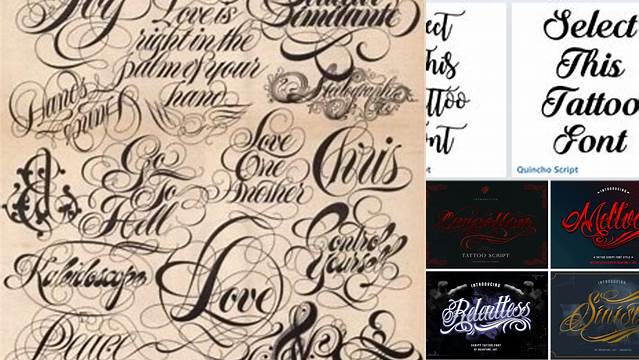
Tattoo Fonts: Styles & Cursive Font Guide
Choosing the right tattoo fonts is a big deal, right? It's like picking the perfect outfit – you want it to reflect your personality, tell your story, and look killer for years to come. Whether you're dreaming of a delicate cursive script or a bold, attention-grabbing block letter, the font you choose is as crucial as the design itself. So, let's dive into the world of tattoo lettering styles, exploring cursive fonts, and helping you pick the perfect ink!
Decoding Tattoo Font Styles: A World of Options
Alright, guys, let's get down to brass tacks. The first thing you'll notice is the sheer variety of tattoo font styles out there. It's a bit overwhelming, but don't sweat it! We'll break it down. You've got your classic categories, and then there are tons of variations within each one. Understanding these styles will help you narrow down your choices and find something that really clicks. Let's take a look at some of the main categories:
- Cursive Fonts: These are the elegant, flowing scripts that mimic handwriting. They're super popular for names, quotes, and anything that you want to have a personal touch. Think of them as the calligraphy of the tattoo world. There are tons of different cursive fonts – some are super fancy with lots of swirls, while others are simpler and more straightforward.
- Block Letter Fonts: Strong, bold, and easy to read from a mile away. Block letters are perfect for making a statement. They're great for dates, initials, or words that you want to be the focal point of your tattoo. You'll find block fonts in all sorts of variations, from clean and modern to old-school and vintage.
- Script Fonts: Script fonts are like a cousin to cursive but can include various styles that imitate handwriting. Script fonts often have a more casual and less formal feel compared to the traditional cursive. You can find them in different forms, from elegant and refined to more relaxed and playful.
- Serif Fonts: These fonts have small decorative strokes (called serifs) at the end of the letters. They can look classic, elegant, and sophisticated. Serif fonts are often used in traditional tattoo designs.
- Sans-Serif Fonts: The opposite of serif fonts, sans-serif fonts don't have those little decorative strokes. They tend to look cleaner, more modern, and are generally easier to read at a distance. You often see these fonts used in minimalist tattoo designs.
- Gothic/Blackletter Fonts: This style is all about those dramatic, old-school vibes. Gothic fonts are often used for anything related to the past. These are great if you want a tattoo with a medieval or vintage feel. They have intricate details and thick, bold strokes.
And that's just the tip of the iceberg, folks! Within each of these categories, there are countless sub-styles and variations. The cool thing is, you can often mix and match different fonts and styles to create something truly unique. So, the exploration has just begun!
Cursive Tattoo Fonts: Elegance and Personal Touch
Let's zoom in on cursive tattoo fonts, because, let's be honest, they're gorgeous. Cursive fonts are super popular for good reason. They have a certain elegance and sophistication that other fonts can't always match. Cursive tattoos are excellent for things like names, initials, quotes, and special dates – anything that carries a personal meaning. The flowing lines and the handwritten feel add a sense of intimacy that's hard to resist. When selecting the font to use, you should explore many of the subcategories. These are a few tips to consider:
- Font Weight: The weight of a cursive font refers to the thickness of the lines. Lighter weights will make the font look more delicate and airy, while heavier weights will make it bolder and more visible. Think about the overall aesthetic you're going for. Do you want something subtle, or something that grabs attention? Also, how well will the font weight hold up over time? Finer lines may fade more quickly.
- Font Style: Cursive fonts come in a huge range of styles, from super-fancy calligraphy-inspired scripts to more casual, everyday handwriting styles. Some are all about those elaborate swirls and flourishes, while others are clean and simple.
- Legibility: Make sure the font you choose is easy to read. Some cursive fonts can be a bit tricky, especially when they're small or the lines are too close together. Your tattoo artist can give you an opinion on how readable the chosen font will be, considering the size and placement of your tattoo.
- Consider the Placement: Where are you planning to get your cursive tattoo? Some fonts might look better on your wrist than on your back. The placement of your tattoo will affect the style that suits it. Think about how the letters will flow and look in that specific spot. If the design is too long, the tattoo may not look that good.
Cursive fonts let you express your personality and style in a unique way. It's like wearing a piece of art that reflects who you are. Taking your time to find a cursive font that speaks to you will make your tattoo extra special. Trust the process, and don't be afraid to explore different options until you find the perfect match!
Choosing the Perfect Tattoo Font: Tips and Tricks
Okay, so how do you actually pick the perfect font? It can feel overwhelming, but let's break it down into manageable steps. Here's a guide to help you navigate the process like a pro:
- Define Your Message: First, what do you want your tattoo to say? Is it a name, a quote, a date, or just a single word? The content of your message will narrow down your options. Consider the meaning behind the words; that should guide the style you choose. A light-hearted quote might suit a playful font, while a more serious message might require a more formal font.
- Consider Placement: Where on your body will the tattoo be? Certain fonts work better in certain spots. A delicate cursive font might look stunning on your wrist or ankle, while a bold block letter could be awesome on your forearm or back. Think about how the size and shape of the tattoo will work in the chosen location. Is there enough space? Will it distort over time?
- Research Font Styles: Browse font websites and tattoo portfolios. Get inspired! Create a mood board and look for styles that appeal to you. Search for different fonts online. Once you find the font, make sure your tattoo artist is skilled in using it. The tattoo artist's skills are critical to the font's overall appearance. Some font styles are harder to execute.
- Test It Out: Use online tools to preview your message in different fonts. Some websites let you type in your text and see what it looks like in various fonts. This will give you a good visual of how the font appears with your words.
- Consult with a Tattoo Artist: Your tattoo artist is your best friend in this process. They can offer invaluable advice on font selection, sizing, and placement. They will also be able to tell you if a specific font is suitable for tattooing. The artist will also have knowledge of how different fonts will look over time. Also, they will let you know if the font is readable.
- Consider the Size and Scale: How big will your tattoo be? The size of the font will affect readability and impact. A smaller font might be suitable for a name on your wrist, but it might not be suitable for a quote on your back. Consider that the ink will spread over time, affecting the overall sharpness of the font. If your font has intricate details, make sure they're large enough to be visible in the long term.
- Think About Your Skin: The type of skin you have can influence the font choice. The skin on your hands and feet will age, affecting the appearance of the tattoo. Areas of your body that are exposed to the sun will affect the ink, so you may want to avoid delicate fonts. This is where your artist's expertise comes in handy.
Beyond the Basics: Extra Tips for a Killer Tattoo Font
Let's amp up your font game a bit more with some extra tips and tricks! These are like the secret ingredients that will take your tattoo from good to amazing.
- Font Pairings: Don't be afraid to mix and match fonts! Combine a bold, block letter headline with a delicate cursive subtext. Pairing different styles can create visual interest and make your tattoo unique. It also shows that you're comfortable with your tattoo.
- Customization: Some tattoo artists can customize fonts, modifying letterforms to create something one-of-a-kind. This is a good option if you want a truly personalized design. Customization takes more time and can cost more. However, you will be able to get the style and vibe you are going for. This also works if you want to add something to make the design unique to you.
- Color and Shading: Think about whether you want black ink, color, or shading. The color and shading can affect the overall look and feel of the font. Shading can make a font look more dimensional, while color can add a pop of personality. Consider the colors and how they will look on your skin tone. If you want colors, consider what kind of artwork you want for the ink.
- Long-Term Considerations: Consider how the font will age over time. Thinner lines and delicate details can fade and blur, so bolder fonts often hold up better. Talk to your tattoo artist about the longevity of different font styles and ink colors. Make sure the placement will work in the future. The skin will change with time.
- Proofread, Proofread: Before you get inked, double-check the spelling and grammar of your message. Nothing is worse than a tattoo with a mistake! Get a second opinion and make sure everything is perfect.
The Final Word: Ink Your Story
Choosing the right tattoo font is all about telling your story in a way that's authentic to you. Don't rush the process. Do your research, experiment with different styles, and find a font that resonates with your personality and your message. With careful planning and a bit of creativity, you can get a tattoo that you'll be proud of for years to come. So, go out there, explore your options, and find the perfect font to ink your story into your skin!